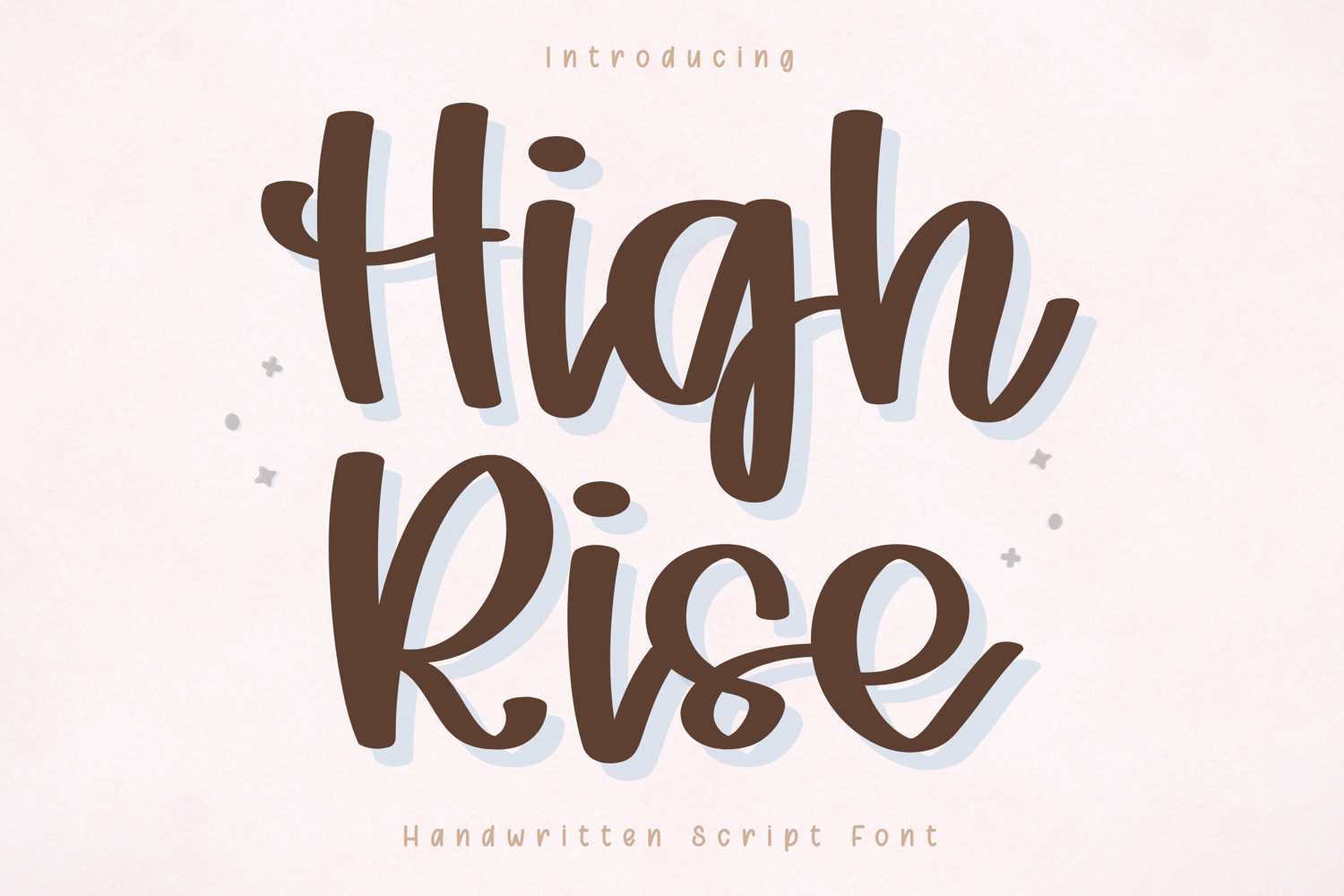
High Rise - Handwritten Script Font
HighRise
High Rise – Handwritten Script Font
High Rise is a soft and friendly handwritten script font designed to bring a warm and approachable feel to your creative projects. With its smooth curves and slightly relaxed letterforms, this font delivers a natural handwritten look while maintaining clarity and readability.
Carefully crafted for versatility, High Rise works beautifully across a wide range of applications—from Cricut cutting projects to digital planners, branding, and social media content. Its clean and consistent strokes ensure smooth performance for both writing and cutting, making it ideal for everyday creative use.
Full set of uppercase and lowercase letters
High Rise is designed with smooth, clean strokes and balanced spacing, making it easy to use for both beginners and professional designers.